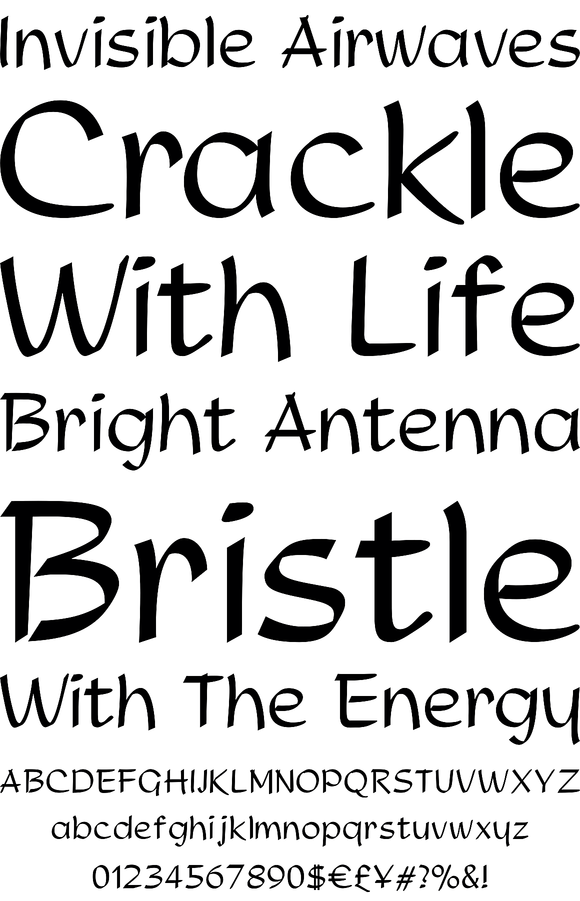
Adams is a revival and major expansion of Dolf Overbeek's Studio typeface and Flambard, its bold counterpart, originally published by the Amsterdam Type Foundry in 1946 and 1954. This digital version adds small caps and a new light weight.
Adams is a simple upright, flat brush script, with stroke angles carefully designed to give the same color in all sizes. It is reminiscent of the sign lettering commonly found in the 1930s and 1940s.